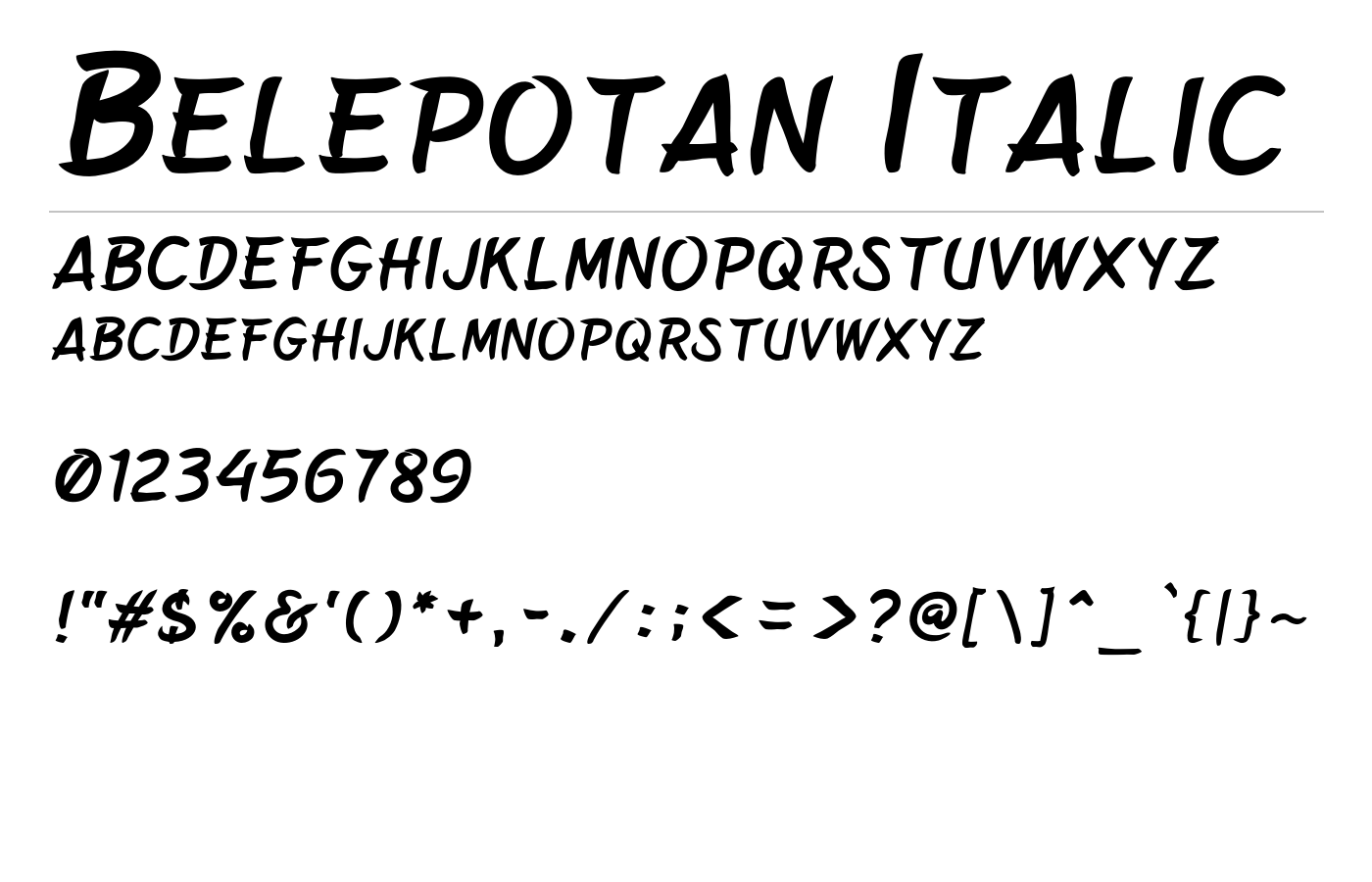
Belepotan Italic is a lively, handwritten-style sans serif font with a casual and energetic feel. Its moderately bold weight and smooth, slightly slanted strokes give it a friendly and approachable personality, making it ideal for creative projects, branding, and informal communication where a personal touch is desired. This font works well in logos, headlines, and packaging, adding a unique, playful character without sacrificing readability.
Belepotan Font
About Belepotan Font
| Designer | Arwan Sutanto |